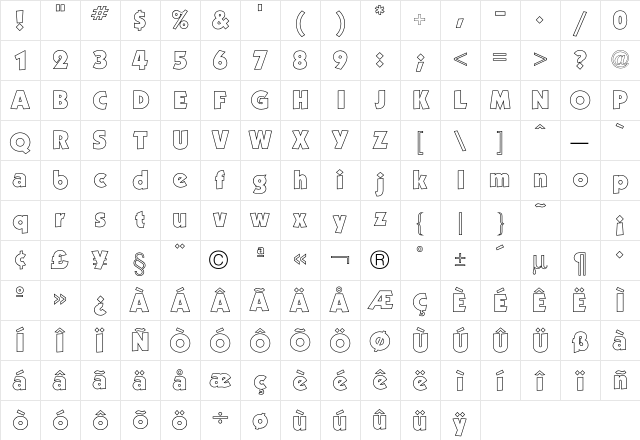
Kabel Outline
Style: Outline
Kabel Family
Kabel Outline
Design Context for Kabel
Kabel is built around its visual character rather than neutral utility - its distinctive forms are designed to make an impression at display sizes.
Font Pairing: Pair with a clean neutral sans-serif for body copy to let Kabel's character lead without overwhelming the composition.
Pro Tip: Use Kabel exclusively at display sizes - it was designed to be seen, not read at length. Let a neutral companion handle body copy.